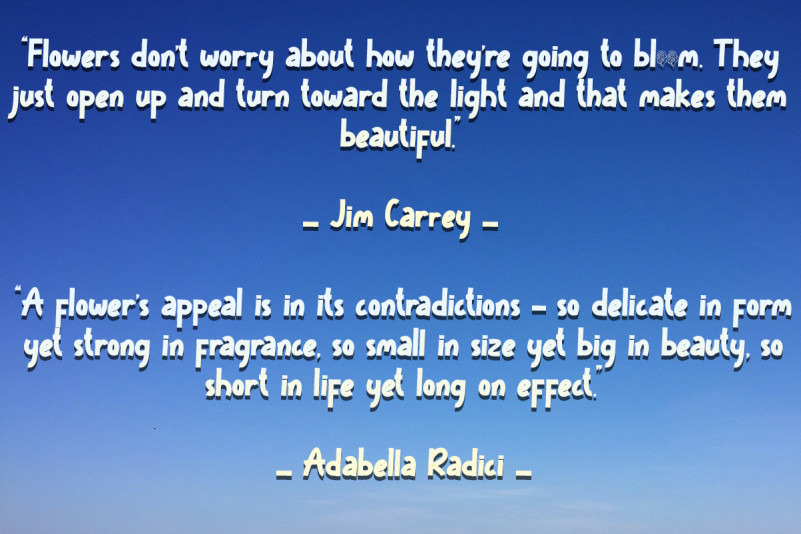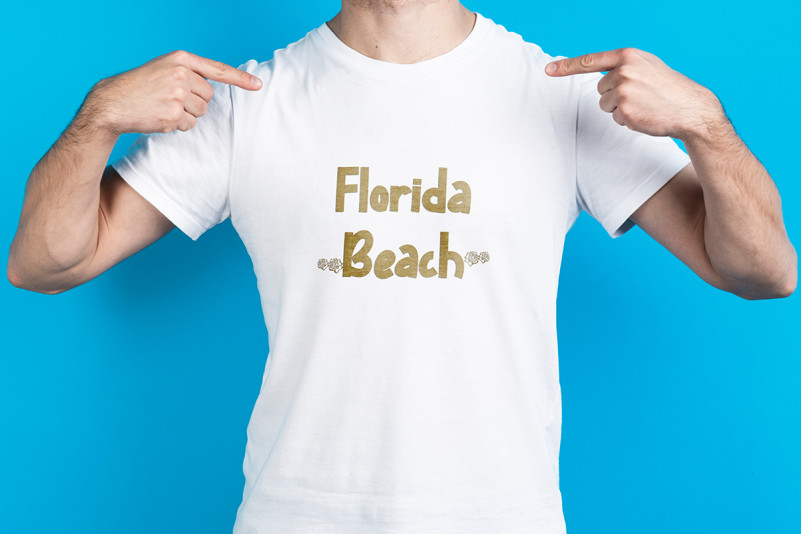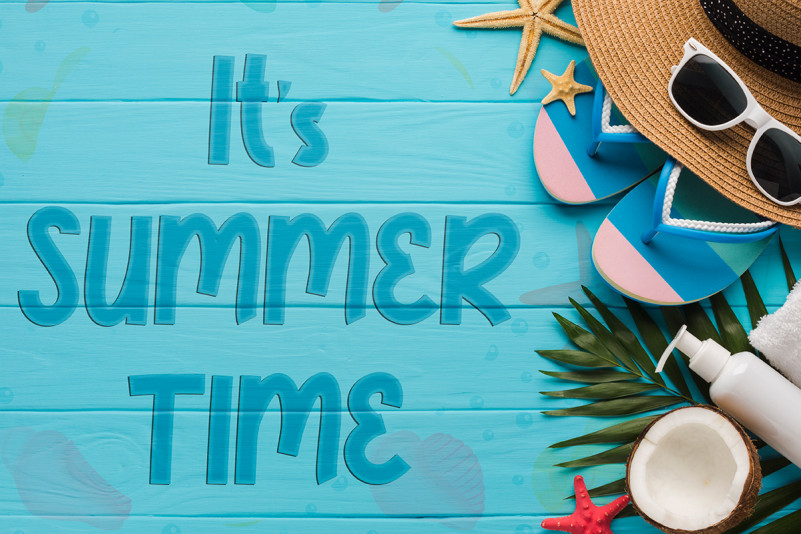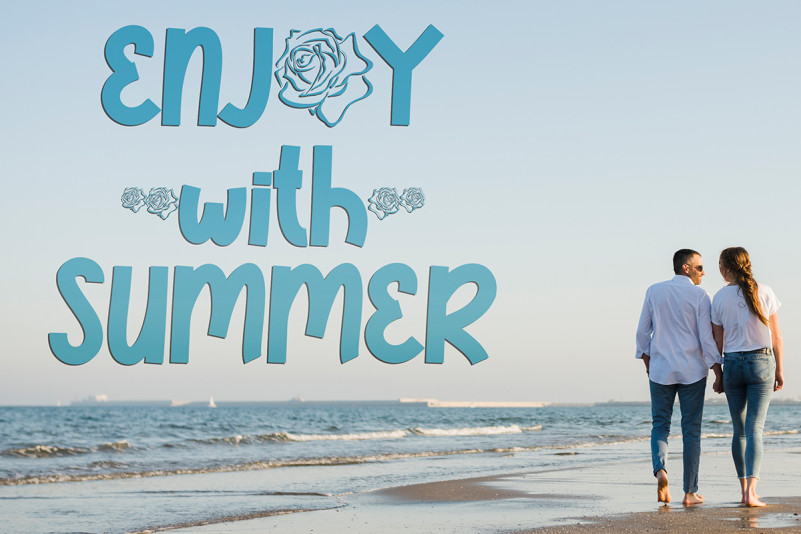
Sunrose Display Font
This is a unique display font combined with a rose shape which further adds to this unique and elegant font. This font is perfect for summer, spring, romance, wedding, invitations, greetings, gifts, birthday, holiday, beach, travel, promotion, business, logos, posters and more.